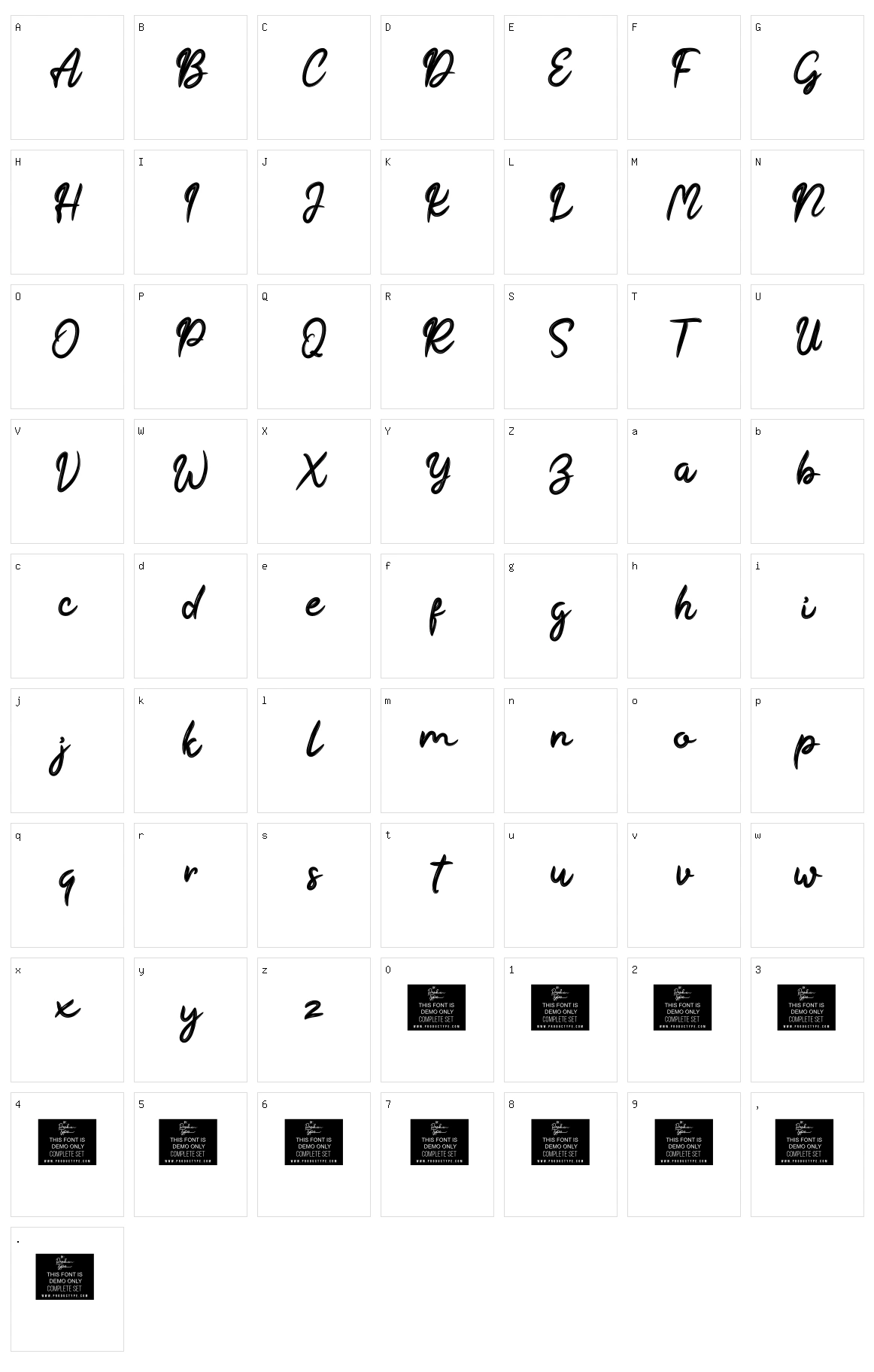
The free font Xantiqoo is carefully designed by productype, showcasing a thoughtful balance of creativity and usability and falls under the Script font style. When you download the ZIP file, it contains only 133.28 KB of font files, making it lightweight and quick to download. Please review the license details below to understand permitted usage and distribution rights. If license information is not available, we recommend using this font for personal projects only or contacting the author directly for commercial usage permissions.